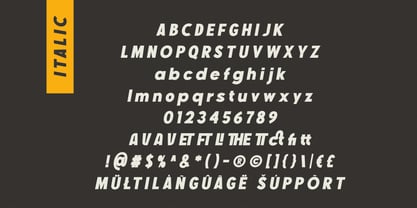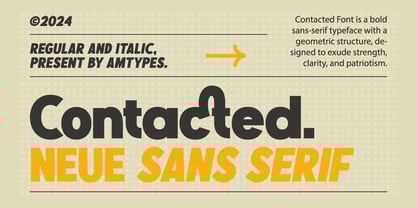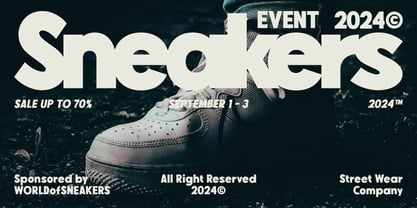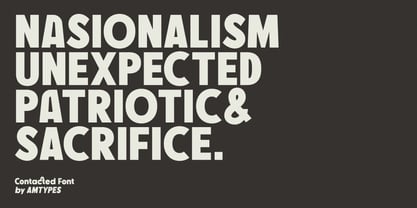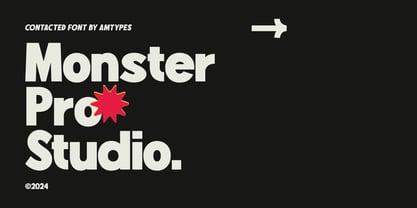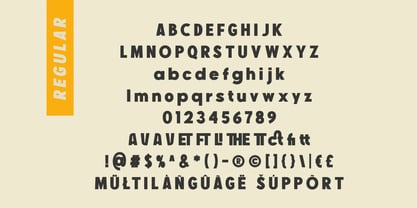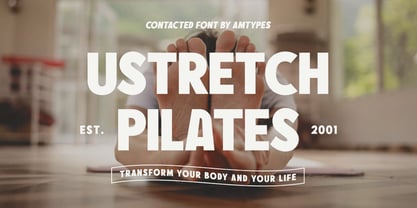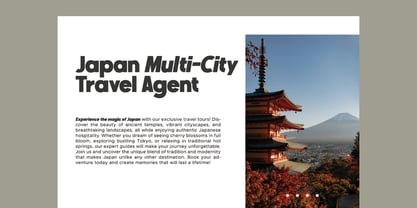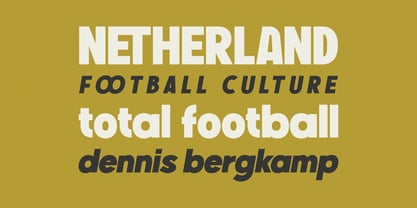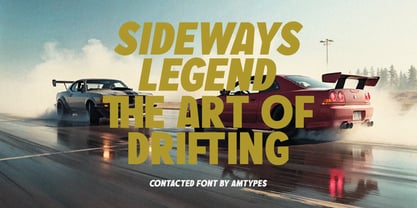
AM Contacted
by Angga Mahardika
The AM Contacted Font Family was designed by Angga Mahardika and published by Angga Mahardika. AM Contacted contains 2 styles and family package options. More about this family
Contacted Font is a bold sans-serif typeface with a geometric structure, designed to exude strength, clarity, and patriotism. Its bold appearance makes it perfect for impactful graphic designs such as posters, slogans, or advertising where a commanding visual presence is essential. The font's minimalist and modern qualities also make it versatile for various creative projects.